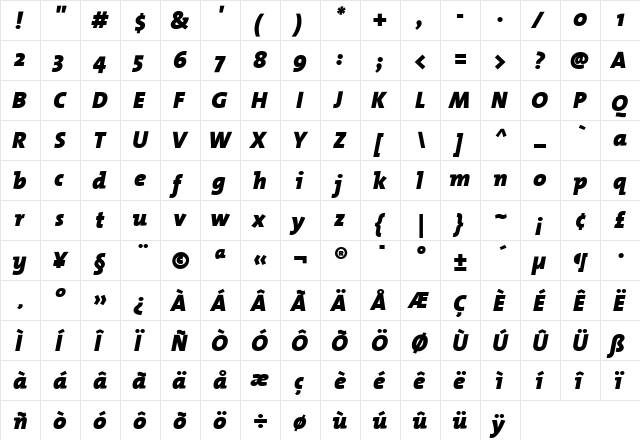
The Mix Black- Italic
Design Context for The Mix Black- Typeface
The Mix Black- offers clean, dependable letterforms without strong stylistic allegiance, making it a practical choice for designers who need flexibility. The slanted form adds forward momentum and visual energy.
Pro Tip: Use The Mix Black- for emphasis, pull quotes, and subheadings where its slanted energy can add rhythm to the layout.